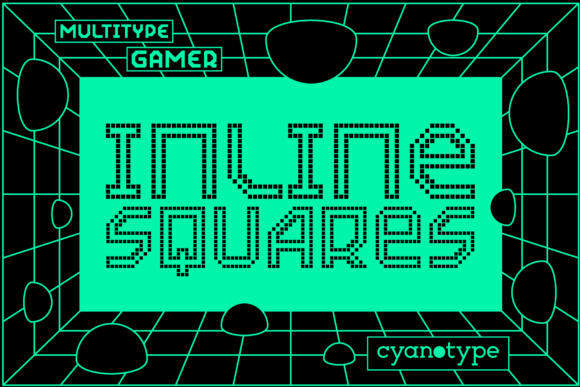
Gamer Inline Squares Font
Prepare to level up your digital content with Gamer Inline Squares, the pixel-perfect display font that will transport your designs to the next dimension!
Immerse yourself in a realm of sharp angles and distorted edges, where every character exudes a retro-futuristic charm. This unique font effortlessly adds a touch of edginess to your creations, making them stand out from the crowd.
With Gamer Inline Squares, you can:
- Craft eye-catching headlines that demand attention.
- Design stunning posters that pop with personality.
- Transform your digital publications into captivating adventures.
- Create social media graphics that leave a lasting impact.
Unleash your creativity and let Gamer Inline Squares become your secret weapon for conquering the digital world. Dare to be different, embrace the pixelized perfection, and watch your designs soar to new heights!